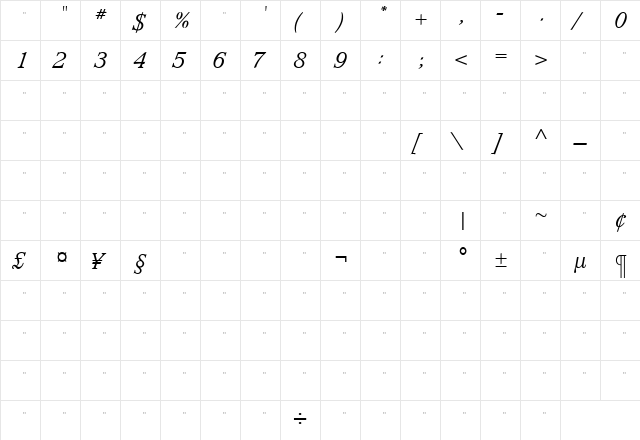
WaverlyLightItalicTab Roman Font Preview
Design Context for WaverlyLightItalicTab Typeface
WaverlyLightItalicTab takes a measured approach to typography — its balanced proportions and neutral character make it a reliable workhorse for both digital and print work. The slanted form adds forward momentum and visual energy. Its slender proportions lend an understated elegance to any composition.